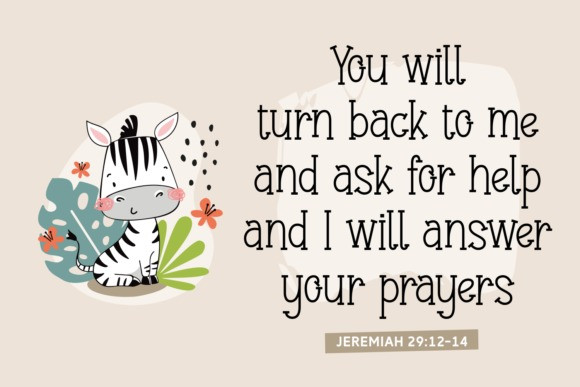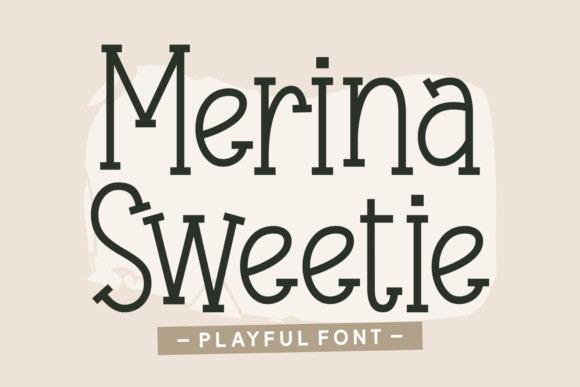
Merina Sweetie Font
Merina Sweetie Font is a cute, thin lettered and quirky handwritten font. It will elevate a wide range of crafting ideas, from cards, to branding, labels and much more.